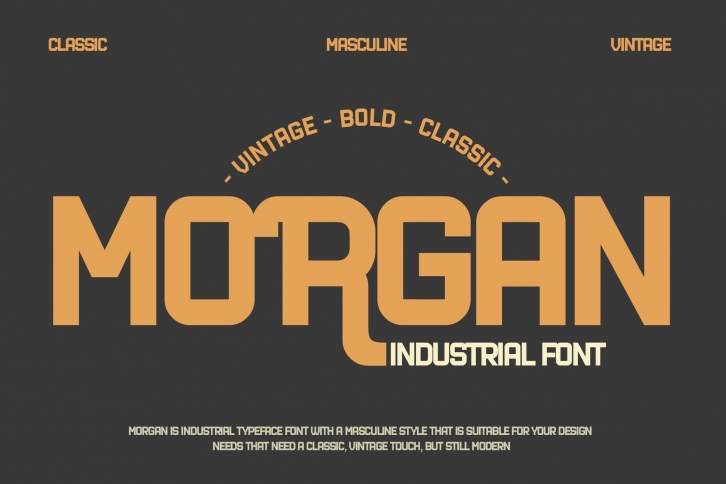
Industrial is a beautiful font that was designed by flat. It's a great choice for designers and creatives who need such a font. It was released on June 15, 2022 and the file size is 9.64 MB. Industrial may give a more youthful, expressive and casual look to your project. It is a very beautiful, refined, elegant, and high-quality font.